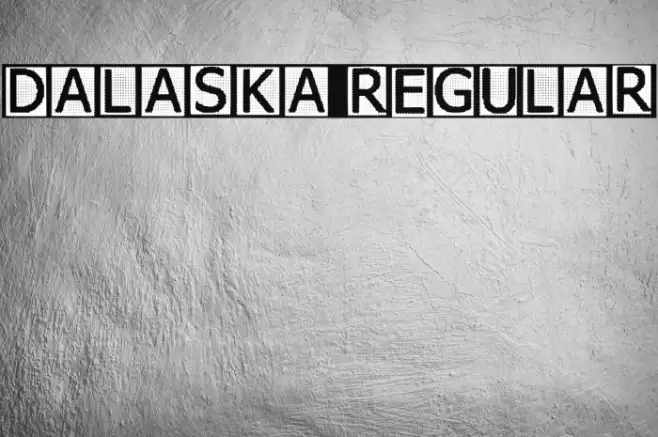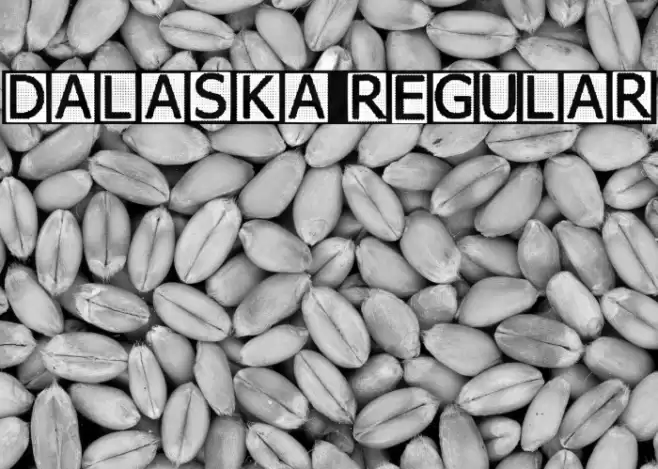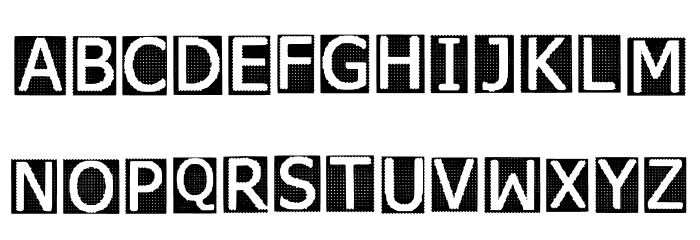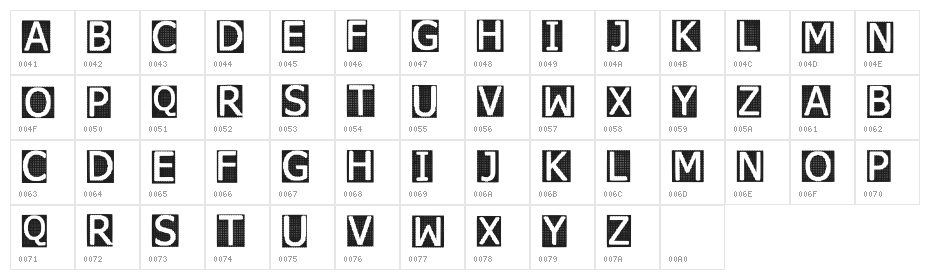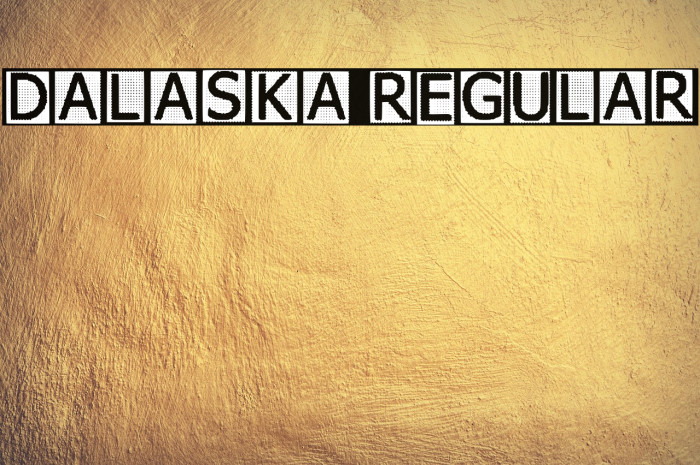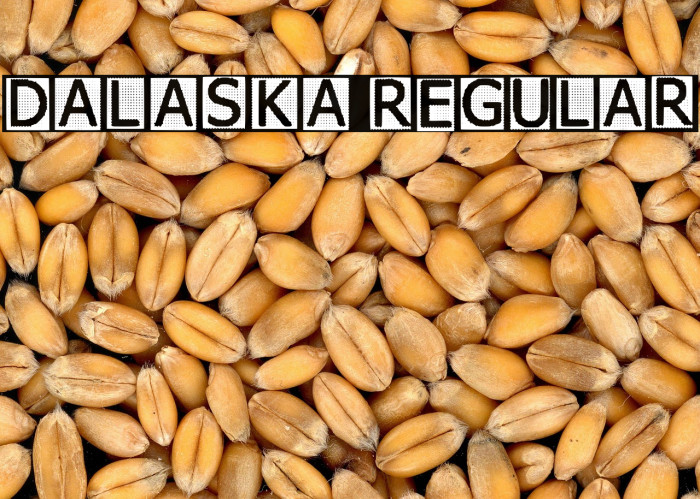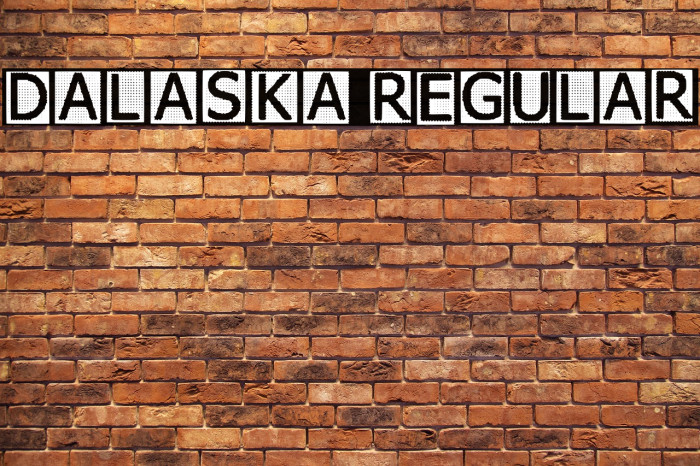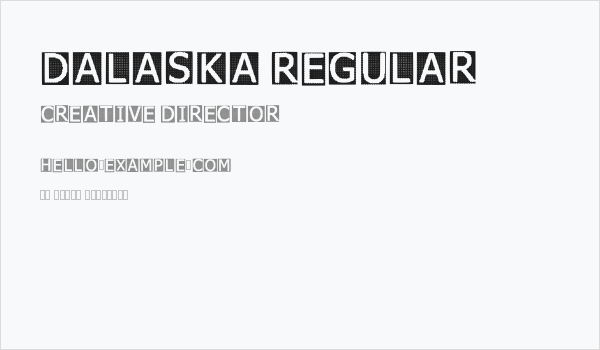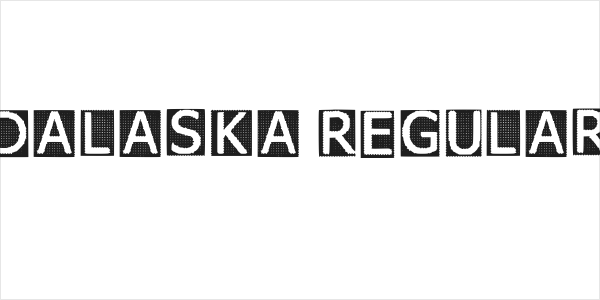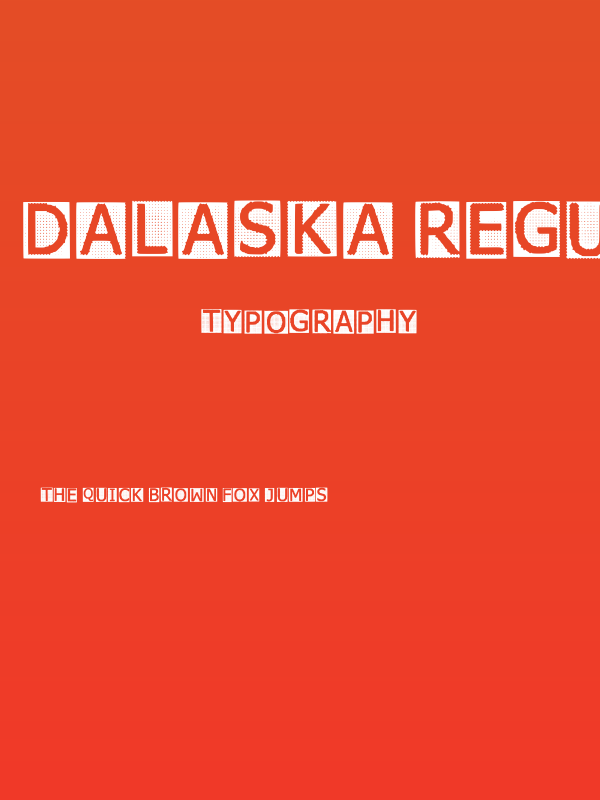
Dalaska Regular Font
Dalaska Regular Description
This font features a bold and geometric design with a distinct stencil-like appearance. Each character is enclosed within a square, creating a uniform and structured look. The letters are uppercase and have a strong presence, with thick strokes and minimal contrast. The use of negative space within the characters adds a modern and industrial feel, making it suitable for attention-grabbing headlines or branding. The font's unique style is both decorative and functional, offering a contemporary twist on traditional stencil fonts.
A bold, geometric stencil font with enclosed characters and a modern industrial feel from Uncategorized fonts.
- Proposed Projects: Ideal for branding, posters, signage, and any project requiring a strong, modern aesthetic.
- Overall Style: Modern, Industrial
- Use Case: Headlines, Logos, Branding